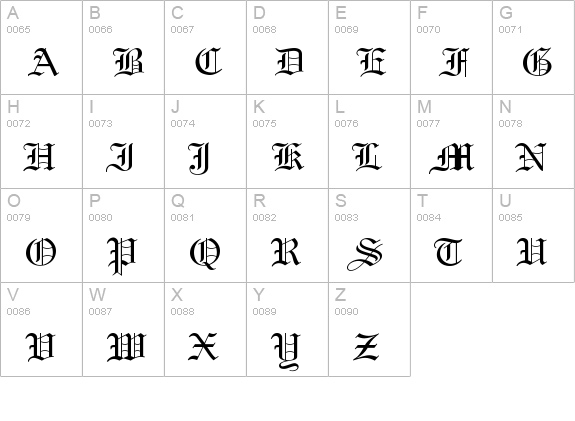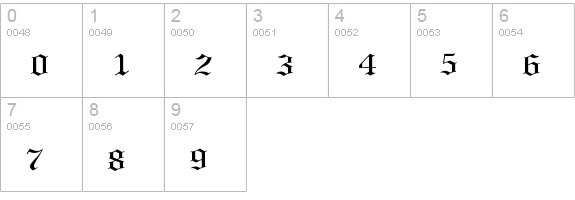
Holy Union is a breathtaking font that combines elegance and sophistication, making it the perfect choice for any creative project. Its timeless and graceful design captures the essence of classic typography, while adding a modern twist. With its clean lines and delicate curves, Holy Union exudes a sense of harmony and balance, making it truly captivating to behold. This stunning font is not only aesthetically pleasing, but also highly versatile. Whether you're designing a logo, creating a beautiful wedding invitation, or crafting an eye-catching poster, Holy Union will bring your vision to life with its impeccable style. Its legibility and readability ensure that your message will shine through effortlessly, captivating your audience and leaving a lasting impression. One of the most remarkable aspects of Holy Union is that it is freely available to download at FontsMarket.com. This means that you can unleash your creativity without any constraints or limitations. Holy Union empowers you to explore new possibilities and express your unique artistic voice, without having to worry about any financial burden. It's a font that celebrates the spirit of creativity and encourages free expression. So, whether you're a professional designer, a passionate hobbyist, or someone who simply appreciates beautiful typography, Holy Union is a font that you don't want to miss. Its timeless beauty, versatility, and the freedom it offers make it a truly remarkable addition to your font collection. Experience the power of Holy Union and let your creativity soar to new heights.